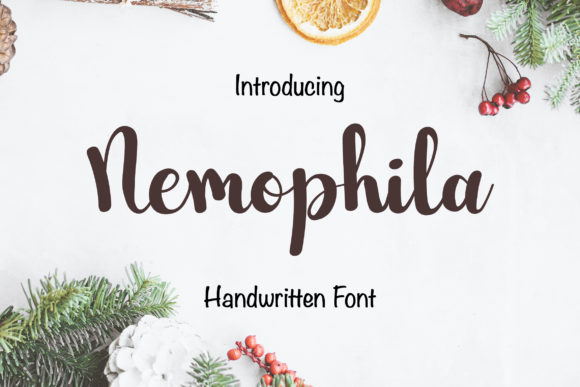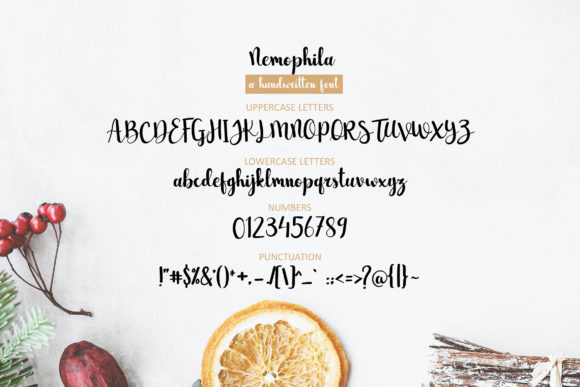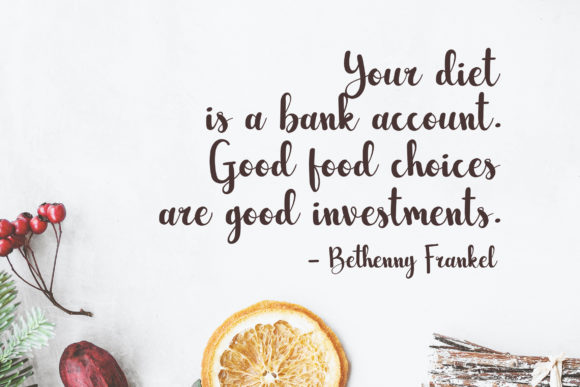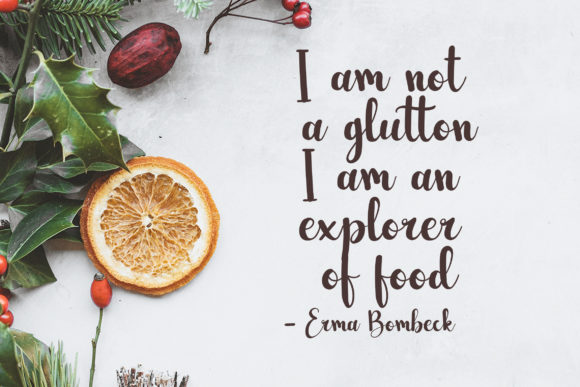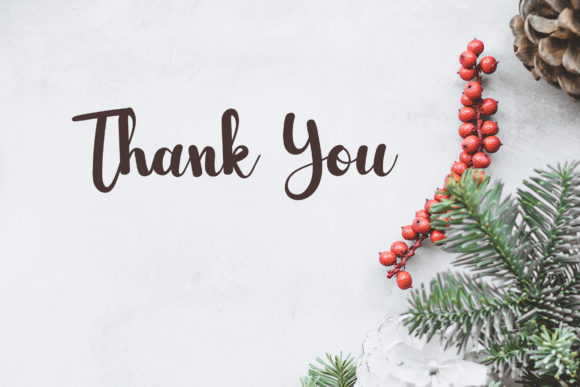
Nemophila Font
About Nemophila Font
Nemophila is a pretty and fancy script font with a serious vibe. Use it to add an authentic charm to any design project!